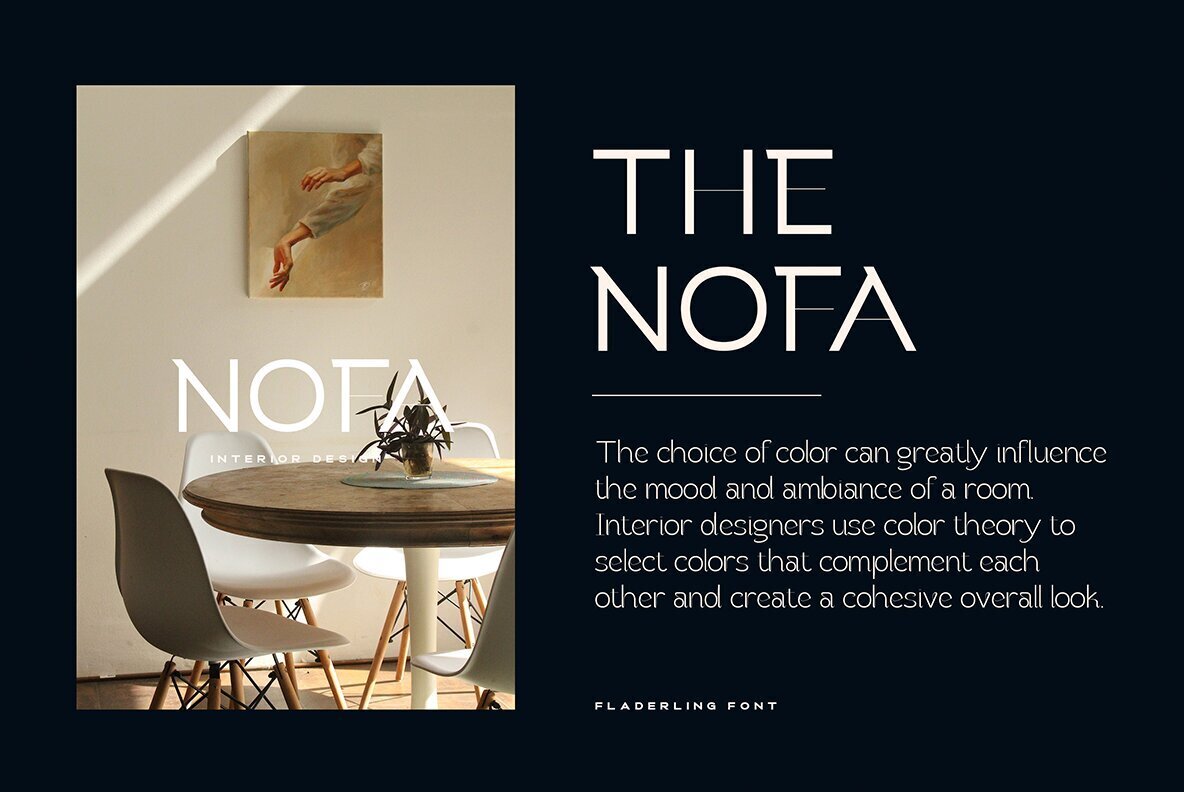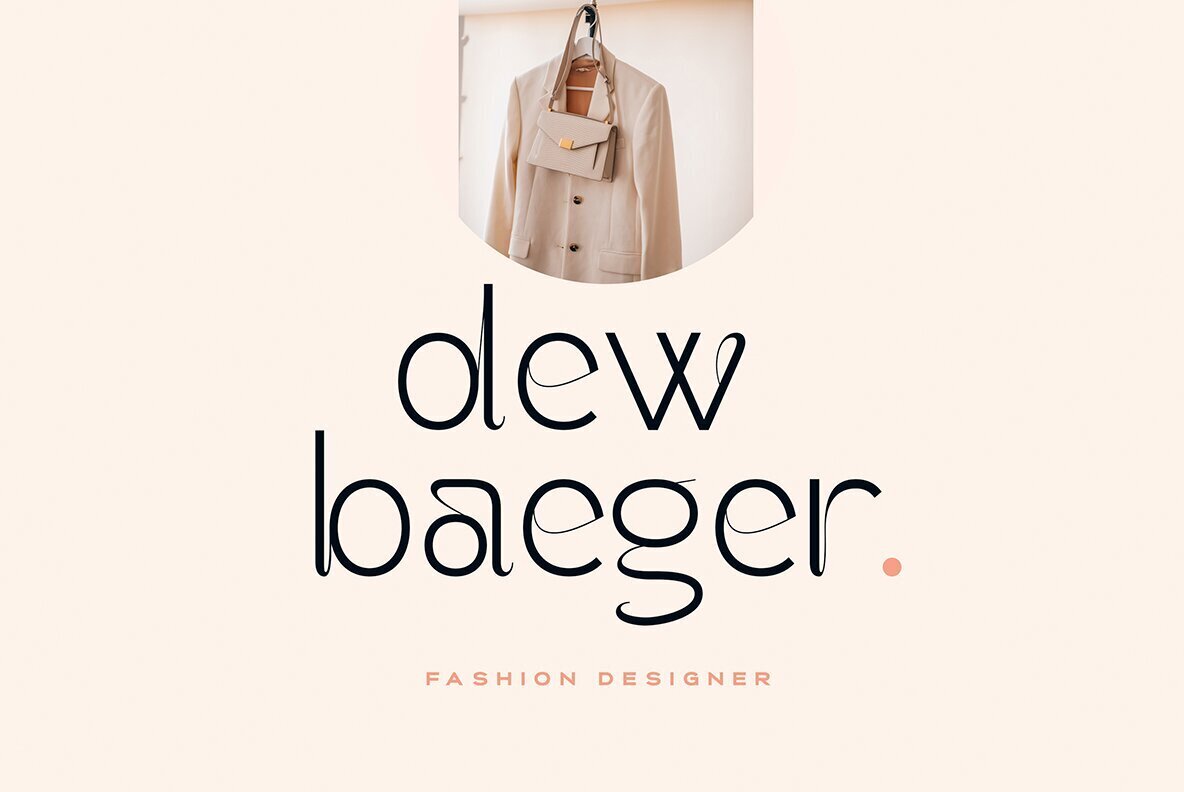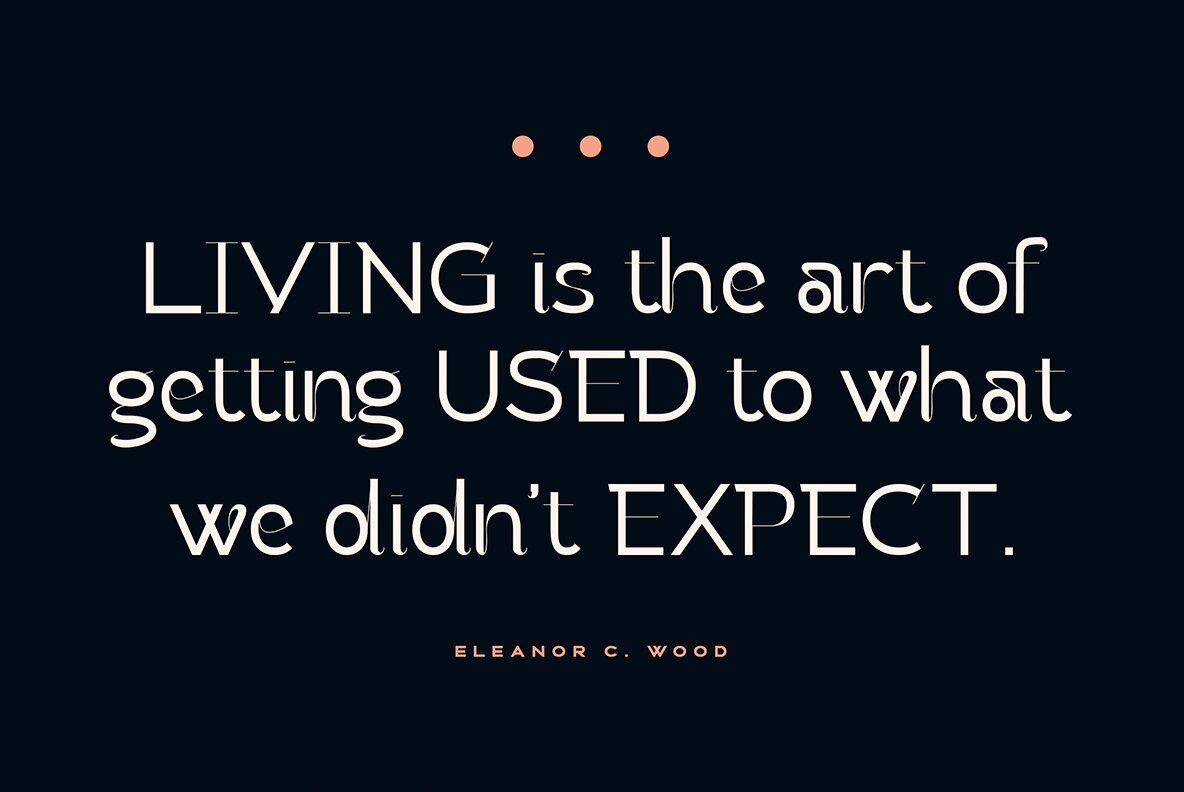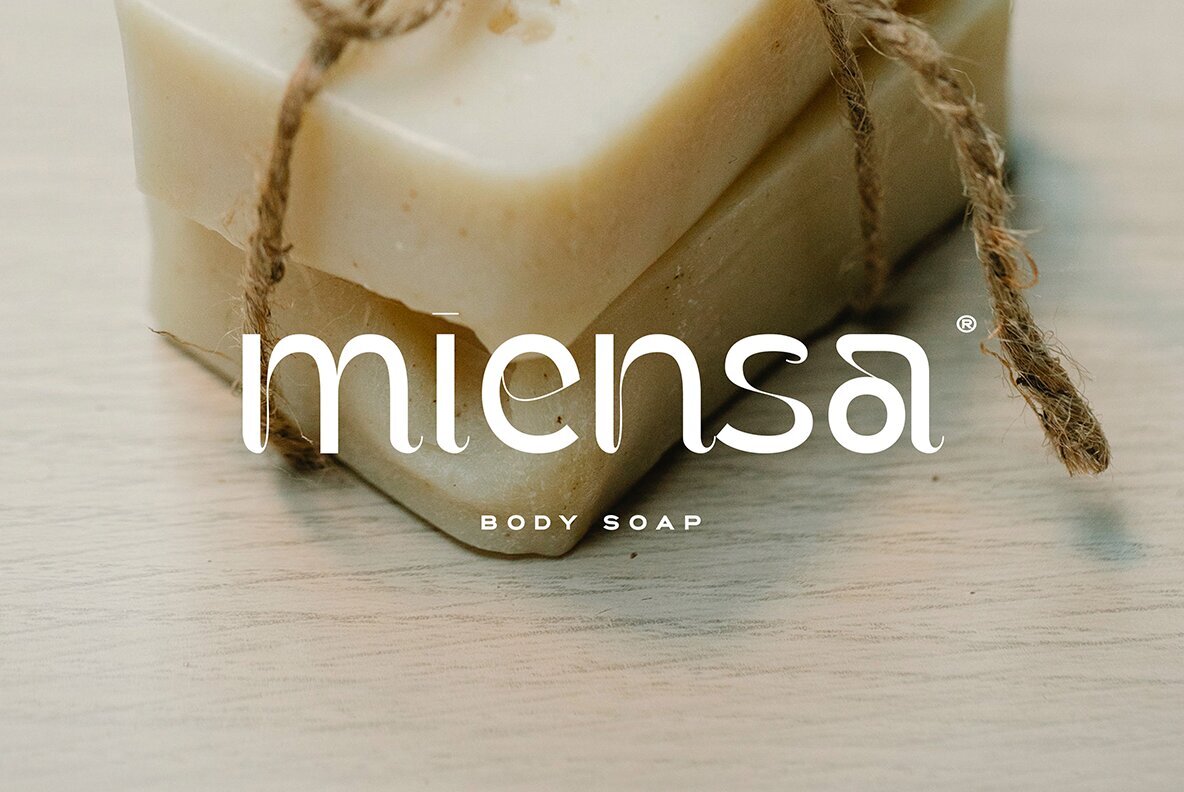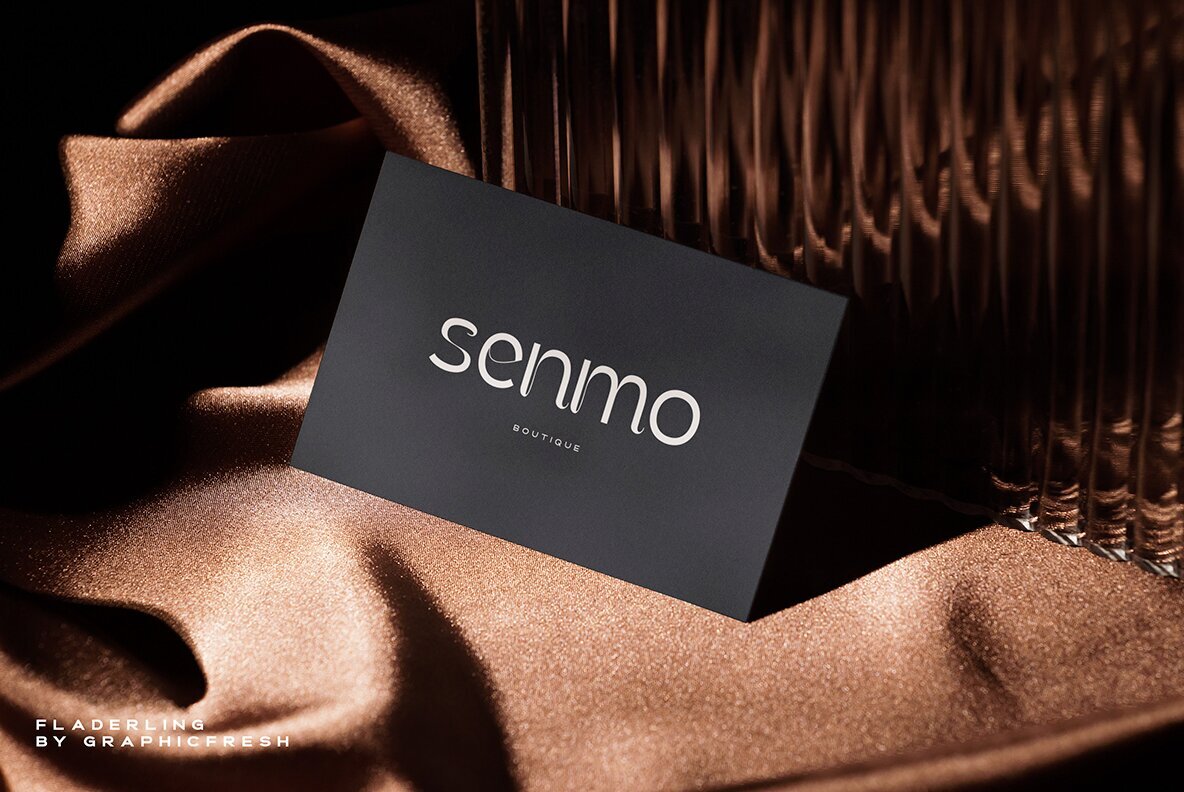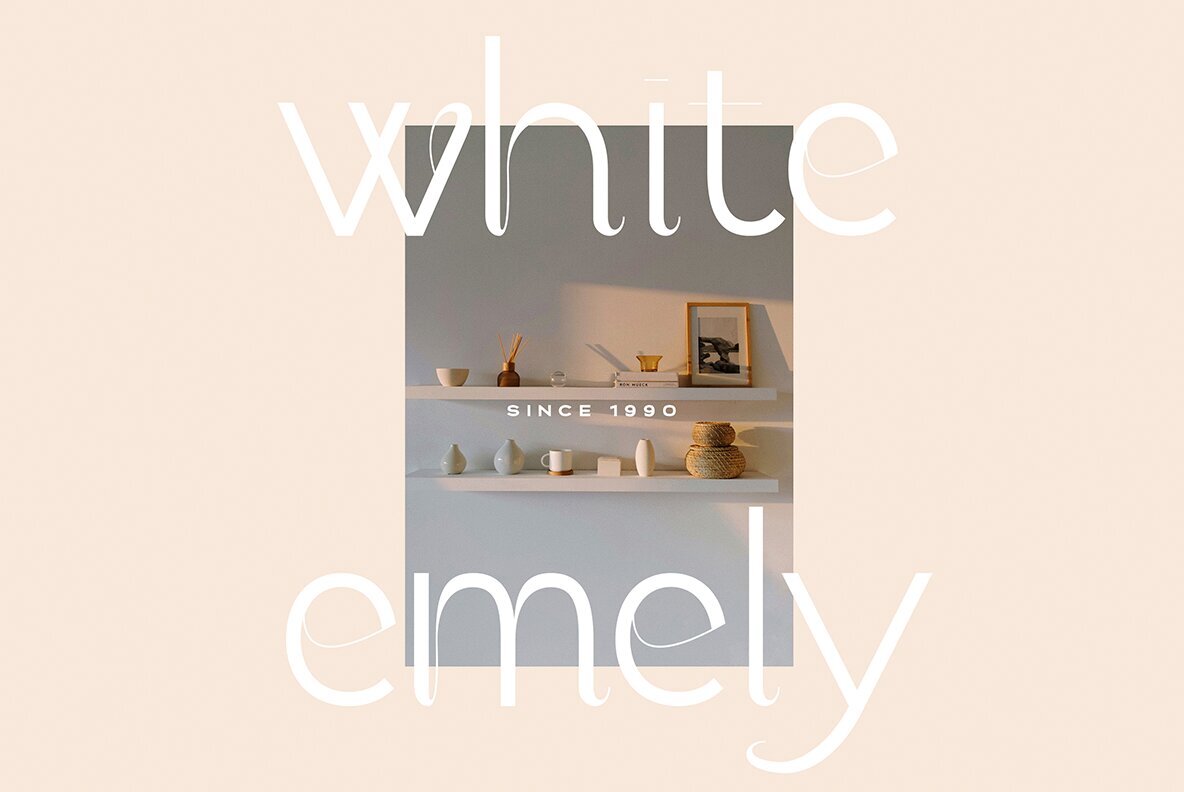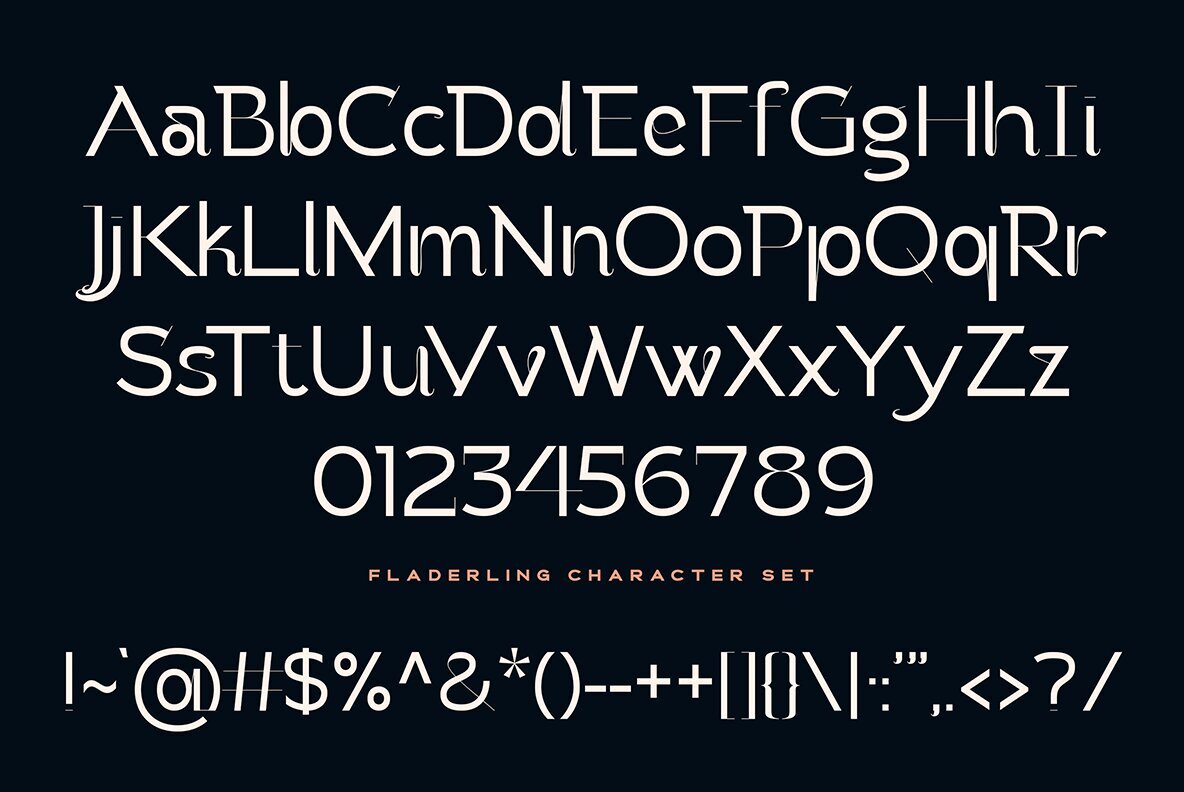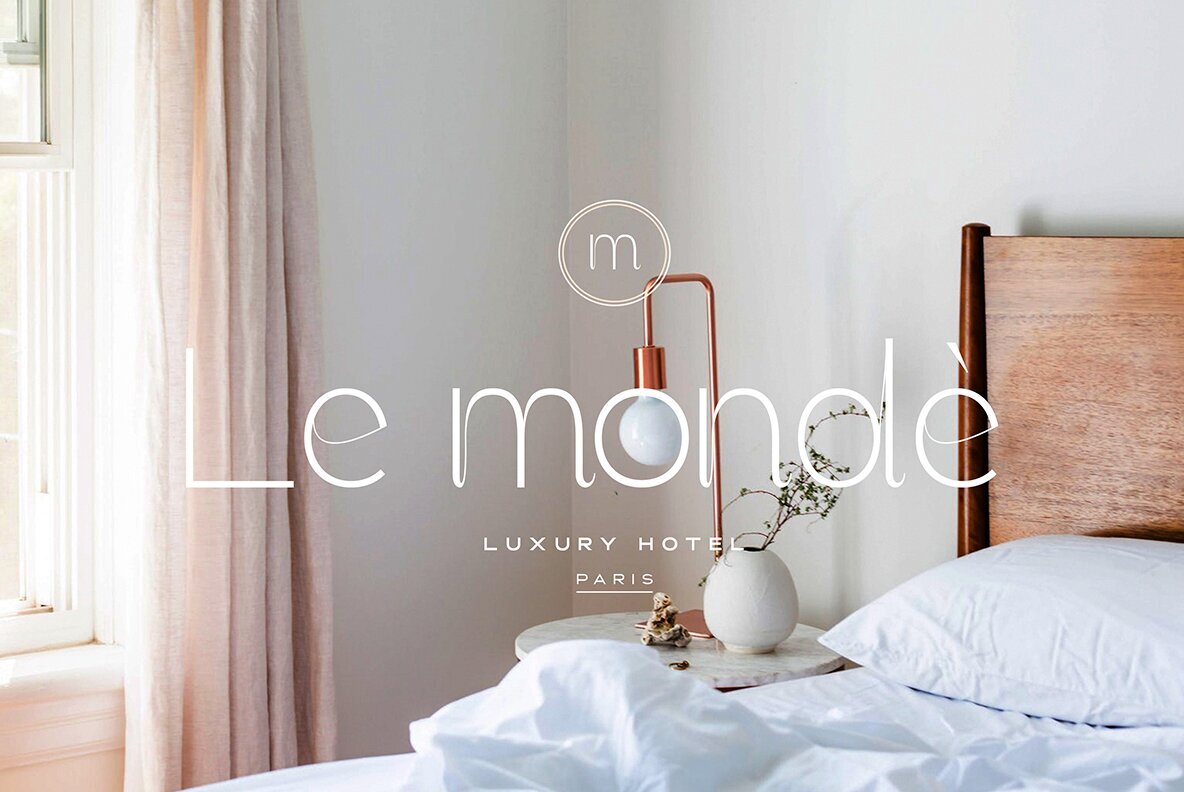
Fladerling Font
Fladerling Thin
Fladerling Light
Fladerling Regular
Fladerling Medium
Fladerling Bold
Fladerling Variable
This minimalist font inspired by cherry stems is a great choice for impactful logo design and branding. The elegant and simple shapes of each character make it versatile and suitable for any type of logo, whether it's a wordmark or a symbol. The cherry stem inspiration adds a unique touch that sets it apart from other fonts. Use this font to create a lasting impression and memorable branding for your business or project.